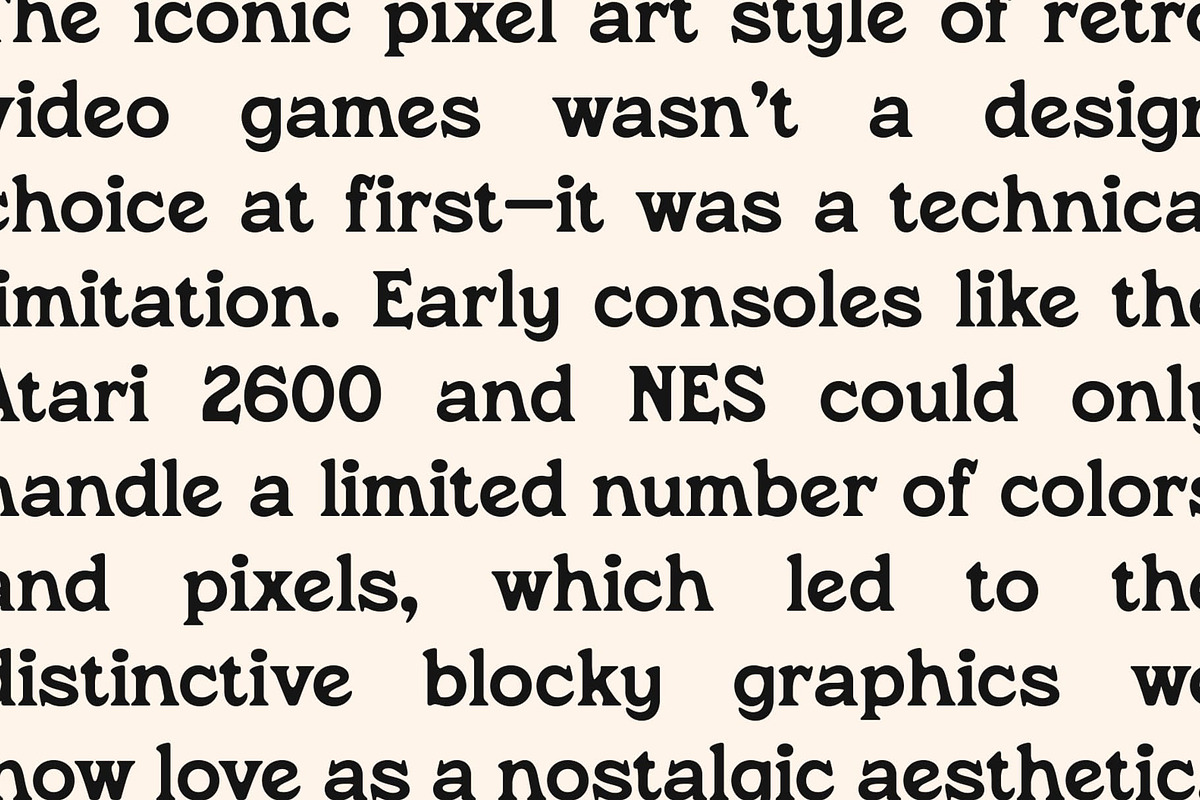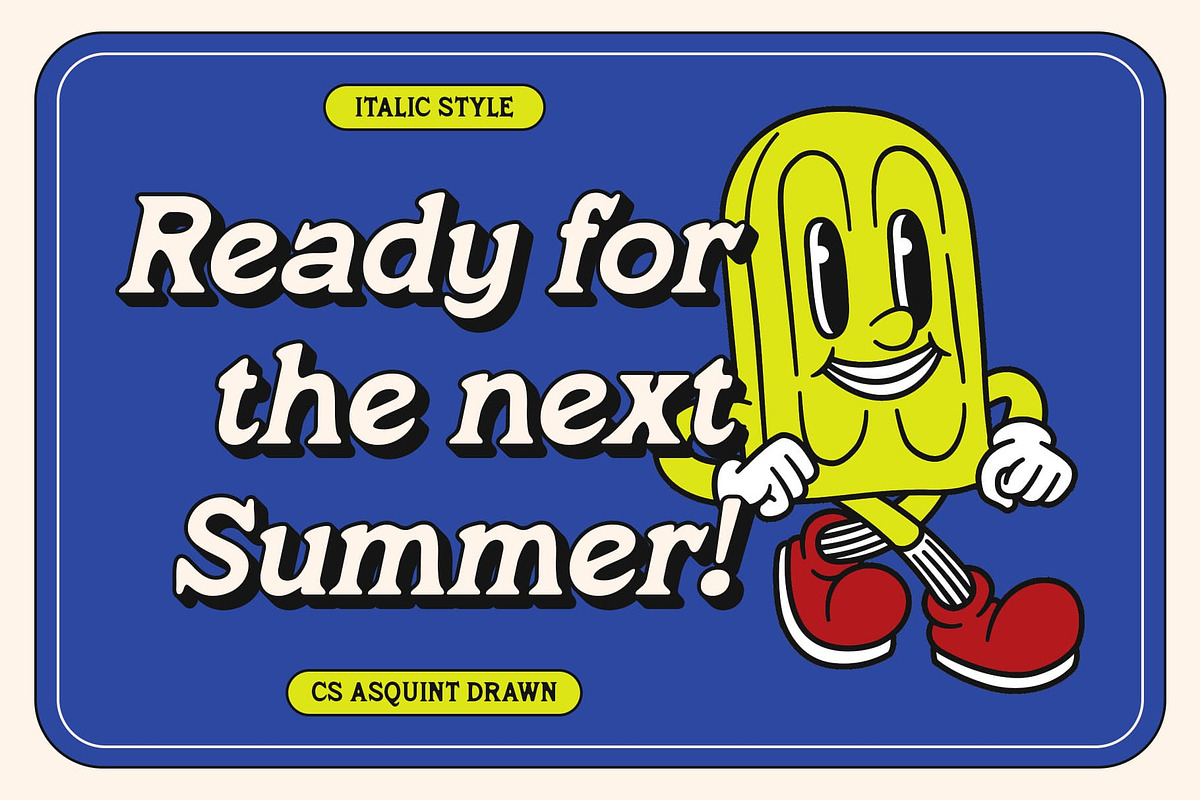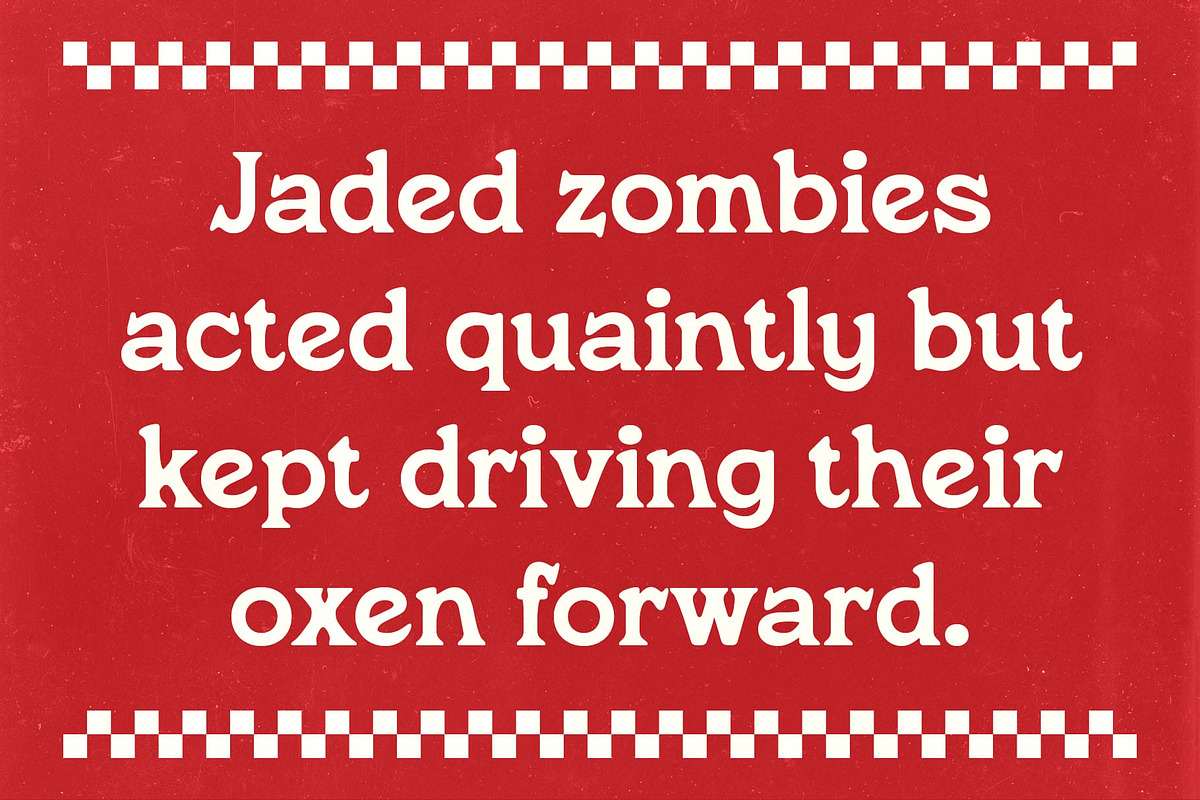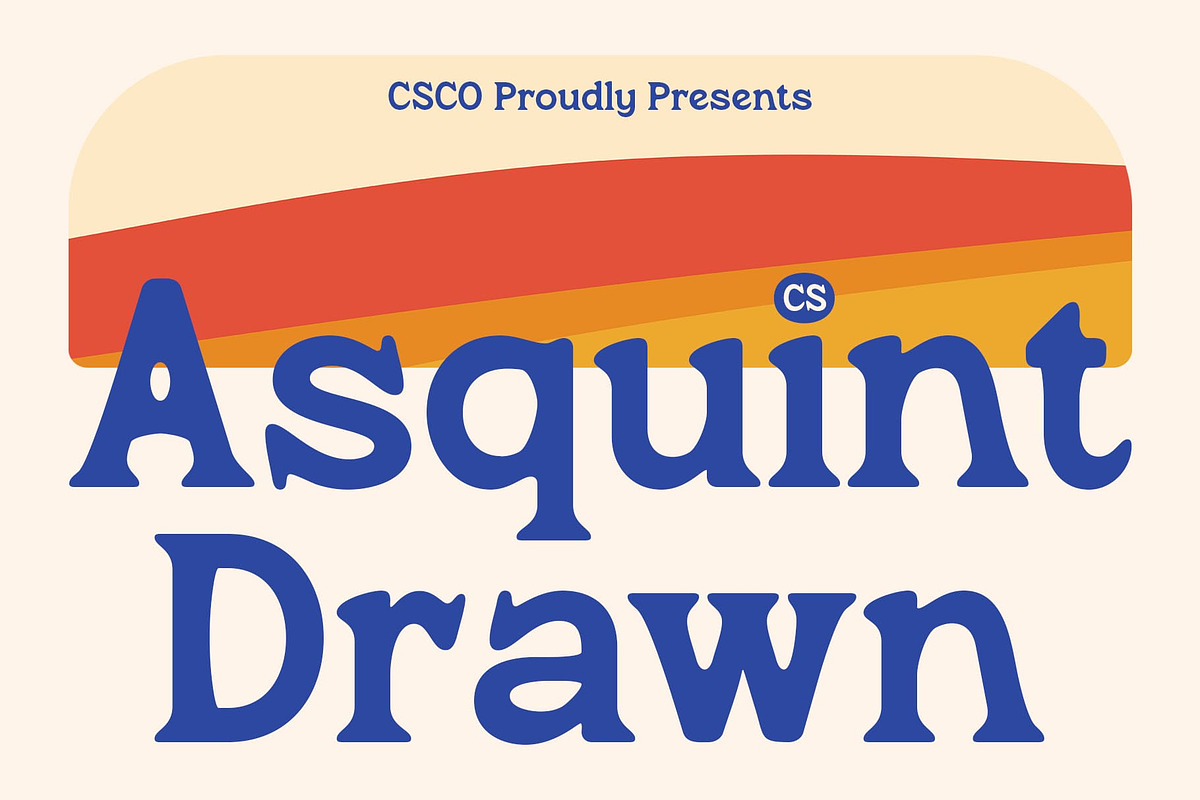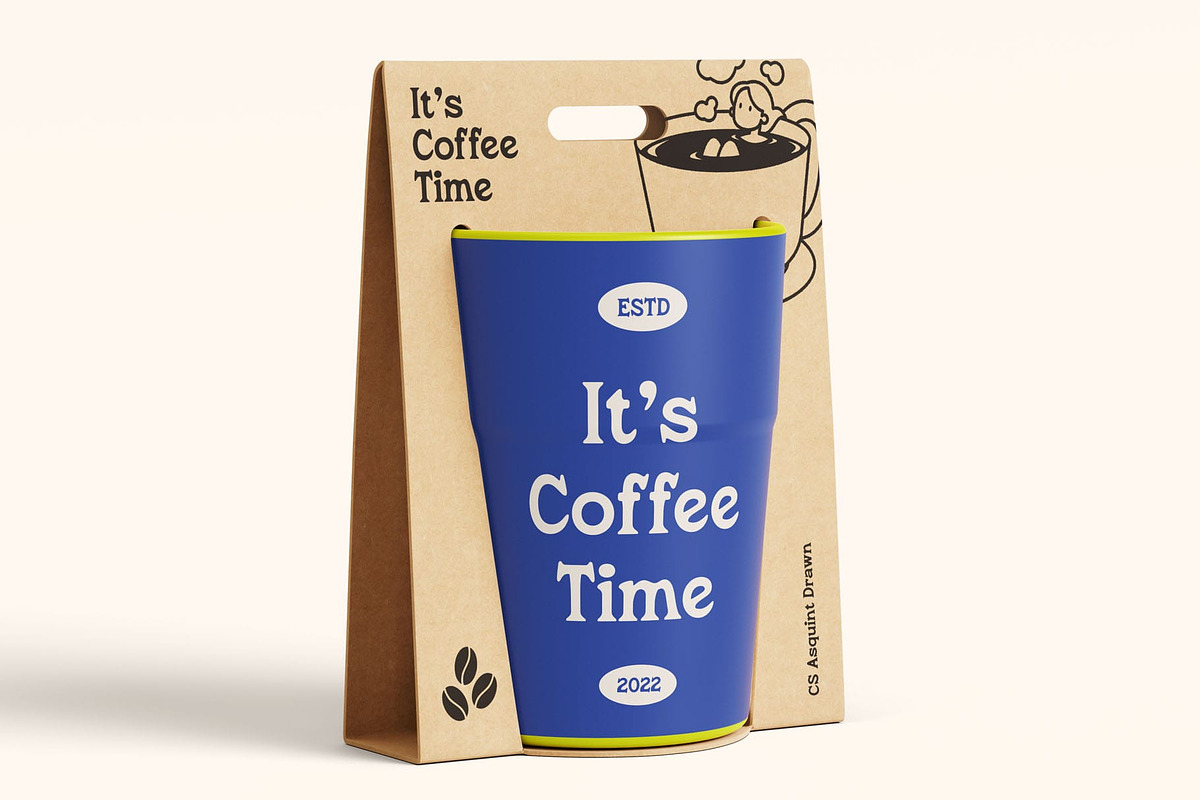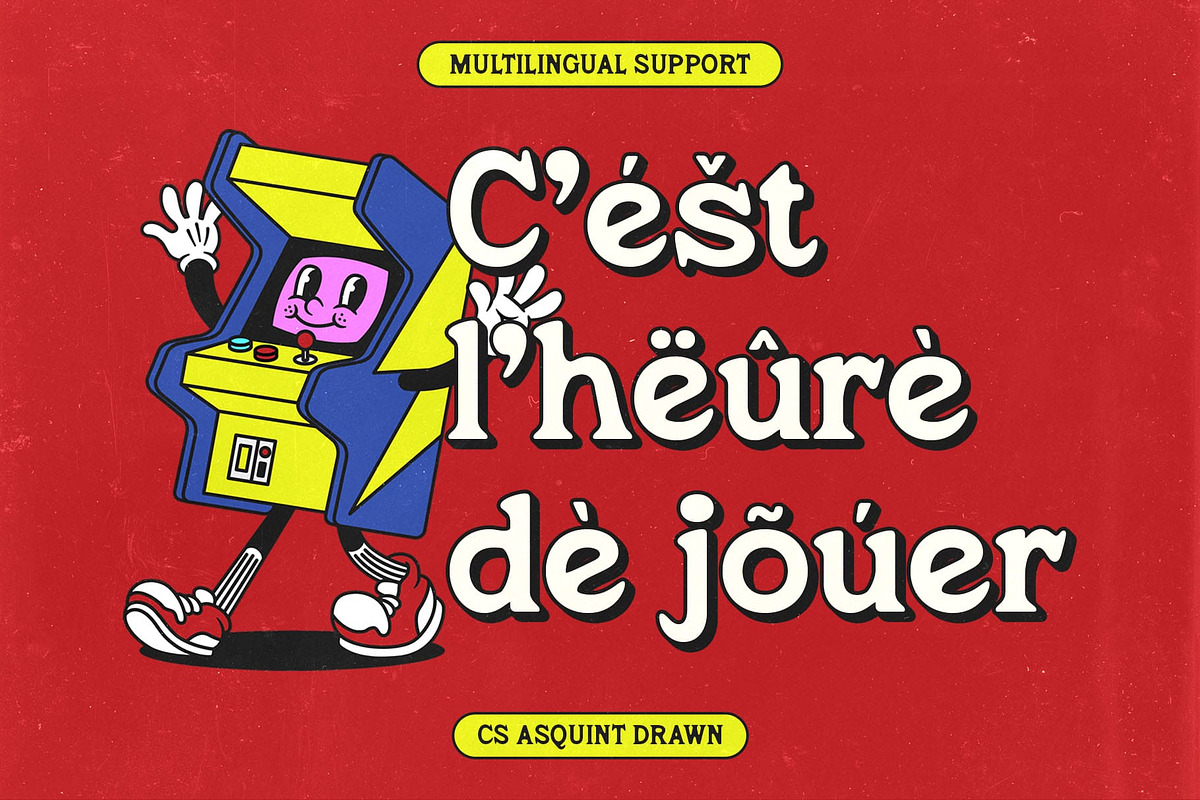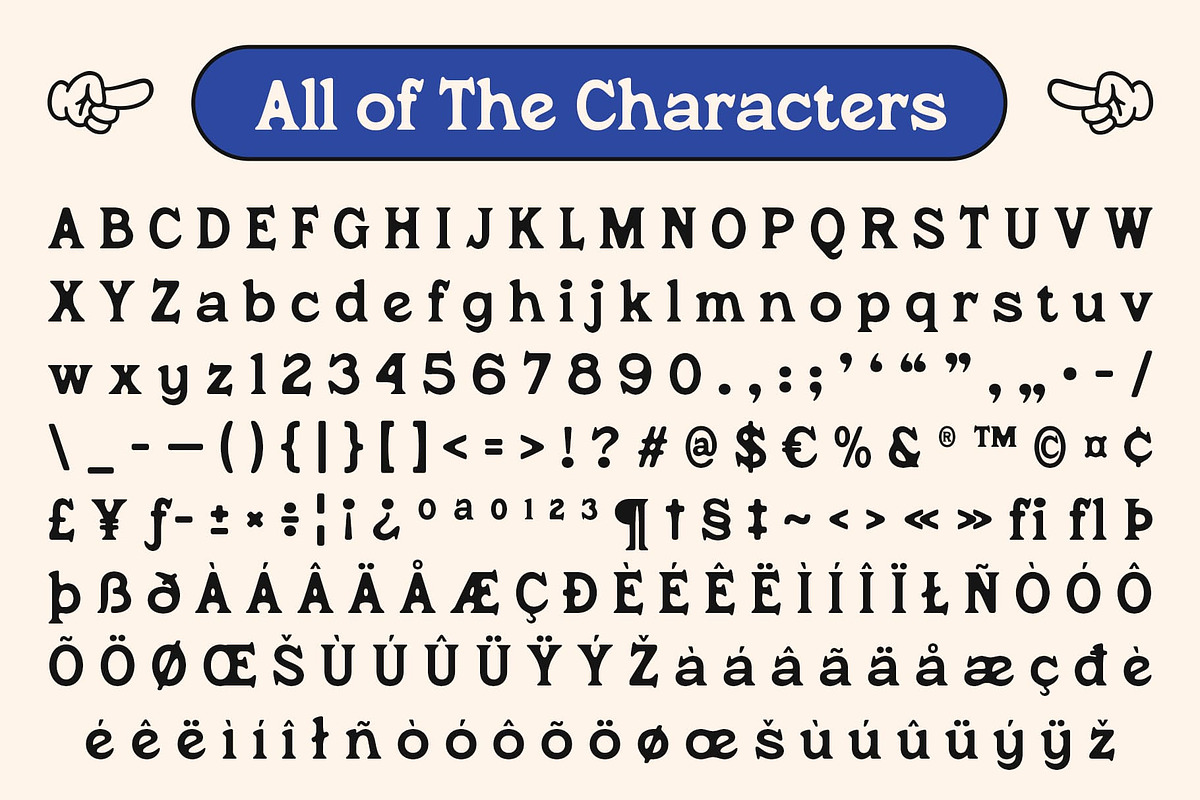
CS Asquint Drawn
CS Asquint Drawn – Playful Retro Charm with Artistic Texture
Classic Serif Meets 90s Nostalgia CS Asquint Drawn is a bold serif display font that channels the fun and charm of 90s retro aesthetics. With its plump, character-filled letterforms and soft curves, it delivers a quirky and delightful tone while retaining the graceful structure of a classic serif. The font strikes a balance between elegance and whimsy.
Expressive and Friendly Letterforms Each glyph is thoughtfully designed with a rounded, expressive shape that adds a friendly, approachable quality to the type. The bold weight and generous curves give your text a lively rhythm, making it stand out while remaining warm and engaging. Whether used in headlines or product packaging, it immediately draws the eye with its fun-loving charm.
Drawn Effect for a Handcrafted Feel What sets this whimsical font apart is its artistic, hand-drawn texture. This detail introduces a tactile, organic quality to the clean serif foundation, infusing each letter with individuality and depth. The drawn effect gives the font a more personal, crafted look—perfect for designs that aim to feel authentic and creatively expressive.
Ideal for Nostalgic and Personality-Driven Design Whether you’re designing retro-inspired branding, cute packaging, or editorial layouts with a playful twist, this classic font brings warmth, style, and flair. It’s perfect for projects that aim to evoke nostalgia while staying stylish, fun, and full of charm.